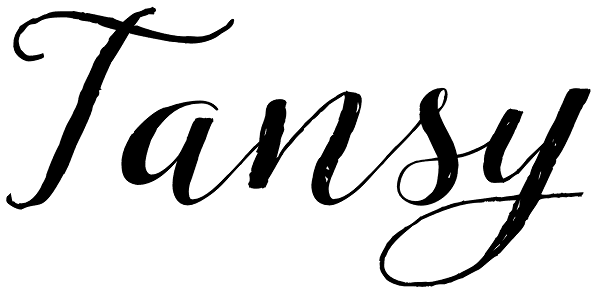
Tansy
Tansy is an organic, modern and casual calligraphy font, made by hand. I've designed "Tansy" carefully with the intention to preserve in its glyphs the original textured appearance for a more personalized effect even more authentic. Tansy font has...